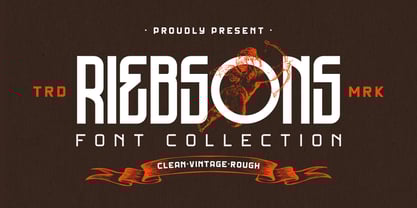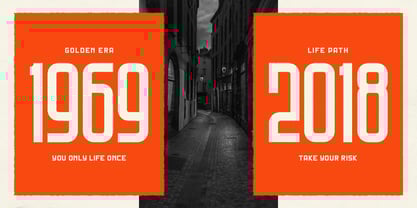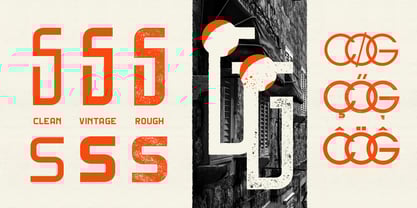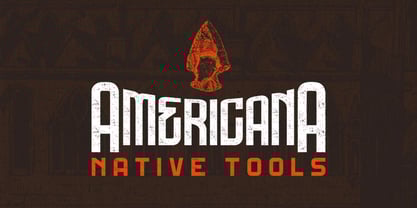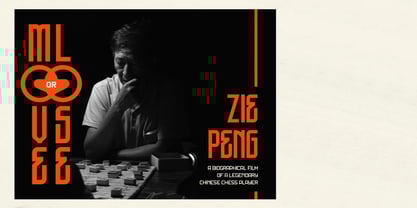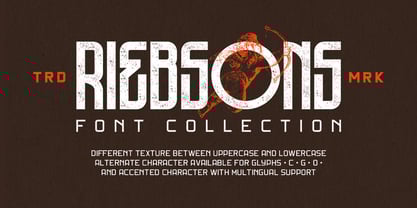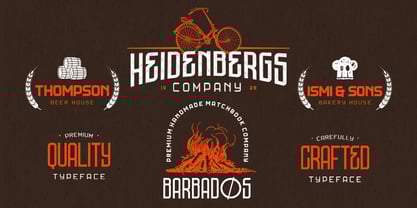
Riebsons
by Lostvoltype
The Riebsons Font Family was designed by Ryan Prasetya and published by Lostvoltype. Riebsons contains 15 styles and family package options.
Bring bold character and classic charm to your designs with Riebsons – a handcrafted collection of 15 condensed fonts in three timeless styles:
Clean, Vintage, and Rough.
Perfectly suited for logos, packaging, posters, apparel, signage, and more, Riebsons combines retro aesthetics with modern versatility. Each font is designed to deliver strong visual impact while maintaining legibility and style.